Forming the beginnings of an exploration in custom fonts based on personality types, ‘Speculative Type Design’ is the name of Daniel Stuhlpfarrer’s (@dnl_stu) final MA thesis at the University of the Arts Berlin. In the class of Prof. Fons Hickmann, Daniel has been questioning the margins between humans and machines in type design; examining ‘the effect that a cooperation between man and machine has on the design of type and what a future of type design could look like as a result’. Ultimately, Daniel’s thesis raises the question: ‘how relevant is the use of new technologies in terms of type design?‘
Speculating on the possible futures of type design and type technology, Daniel tells us ‘This question was further explored using the theories of Gerrit Noordzij’s “The Stroke”, Donald E. Knuth’s theory of a “metafont” and the unification of type by Douglas R. Hofstadter from the 70s and 80s. These theories were combined with new technologies such as artificial intelligence, algorithms and technological components such as variable font technology’.
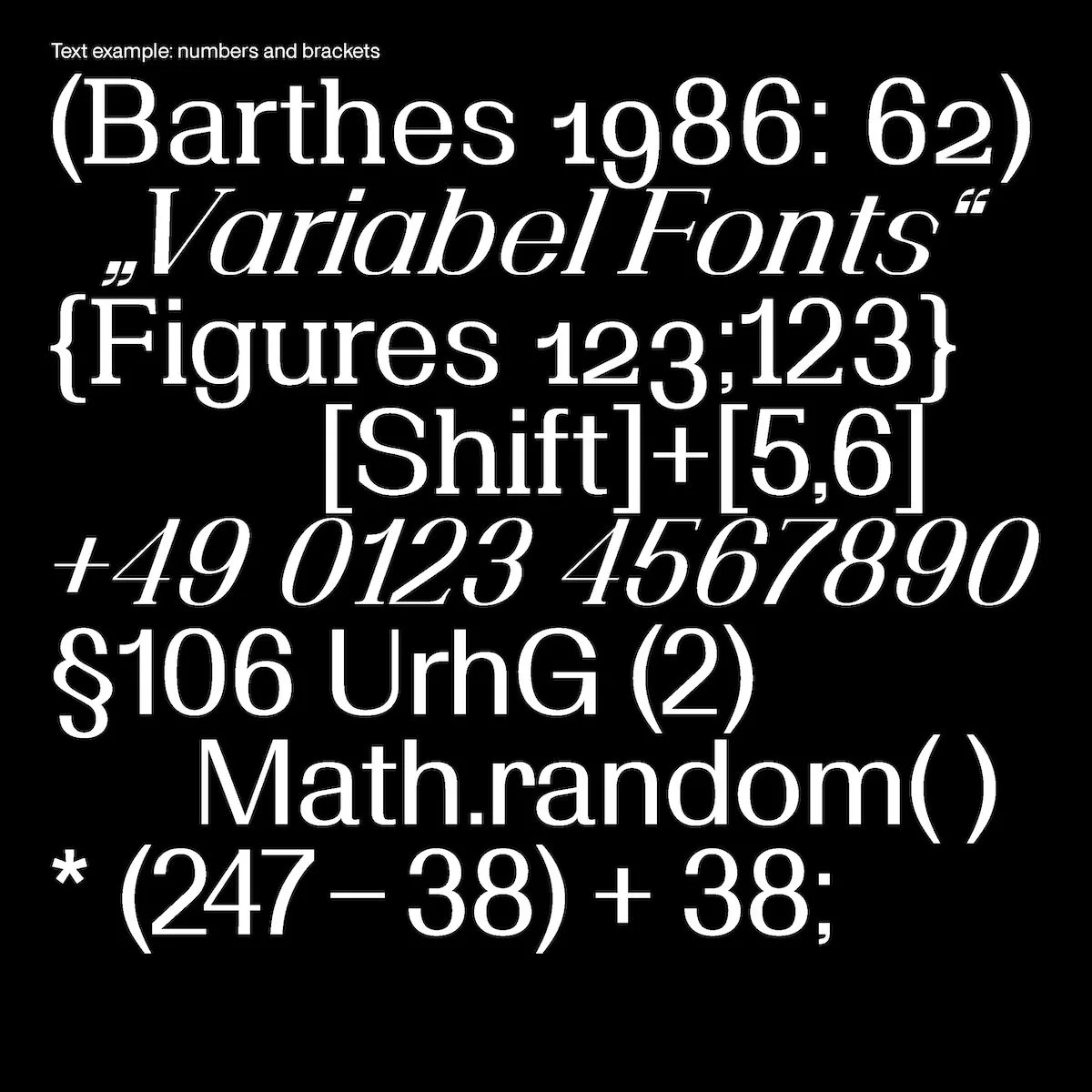
Combining theory and different design technologies – not only those present but those that could emerge – Daniel tells us his speculations ranged ‘from a total shift in activity to a more concentrated design effort’. Building on this gathered knowledge, an algorithm and associated web application were developed as a way of expanding some of his speculations into a practical space.
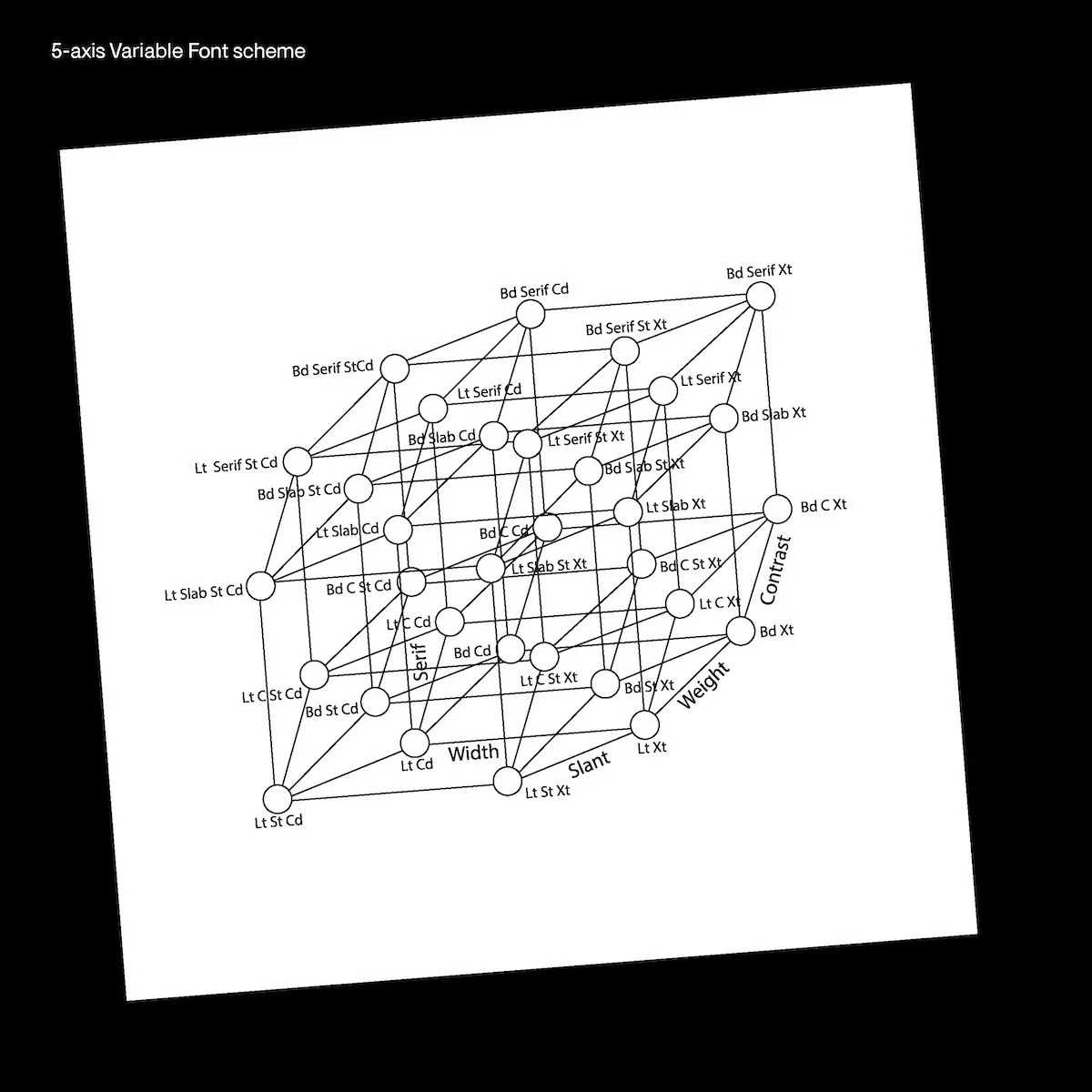
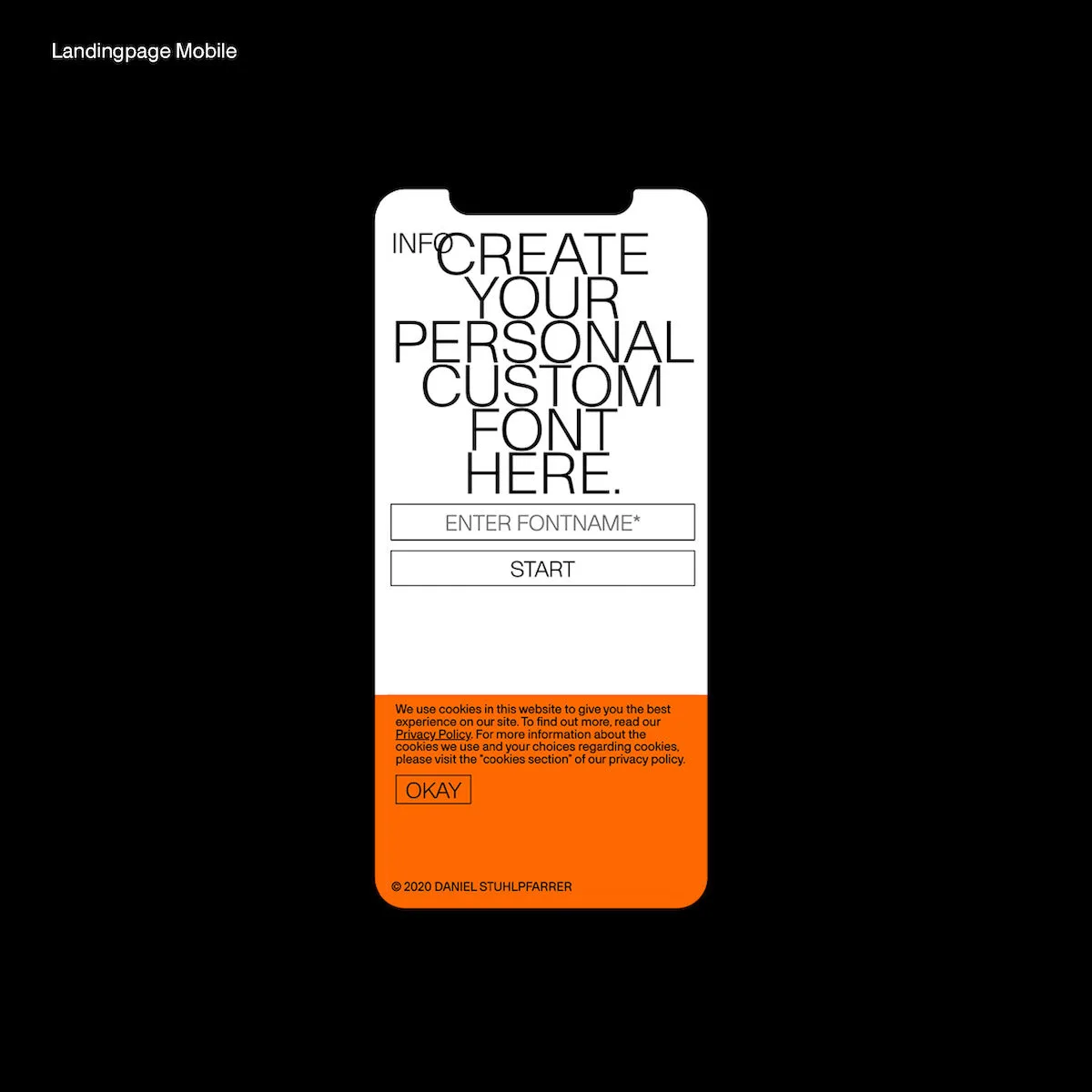
‘This web application generates a custom font based on the personality of the human being’, Daniel explains. ‘In order to put this project into practice, a “metafont” was designed, which combines the most diverse font classifications in one font. And so the variable font “Bagage” was developed, which interpolates on 5 axes. For this purpose, 32 masters – 32 extreme points of a font family – were drawn, resulting in a large number of different possible combinations.’
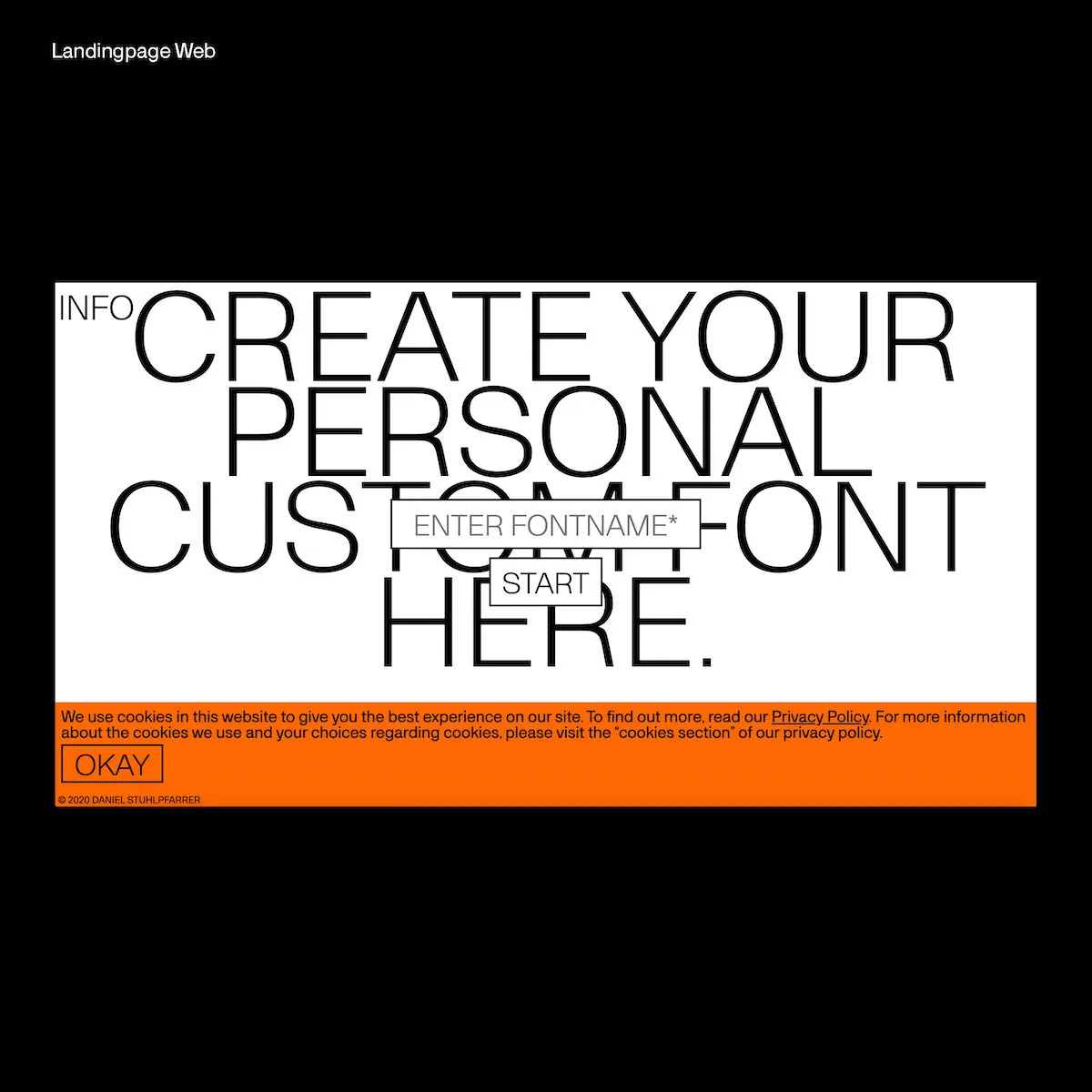
Merging a blueprint of a human personality as the host for an extensive variable font, Bagage forms the basis of Daniel’s Custom Font Generator – which, fascinatingly, works on a specially developed algorithm to determine the personality of the user and transfers its findings into the axes; therefore transferring it into the font classification. Daniel explains the algorithm uses the Big Five Inventory 10 test (aka The Big Five Personality test) as a foundation for its function. And given that the Big Five test is widely renowned as highly credible, it’s so interesting to think how Daniel’s been translating it into design… ‘With this Custom Font Generator “Bagage”, you can now generate your own personal custom font’ , he adds.
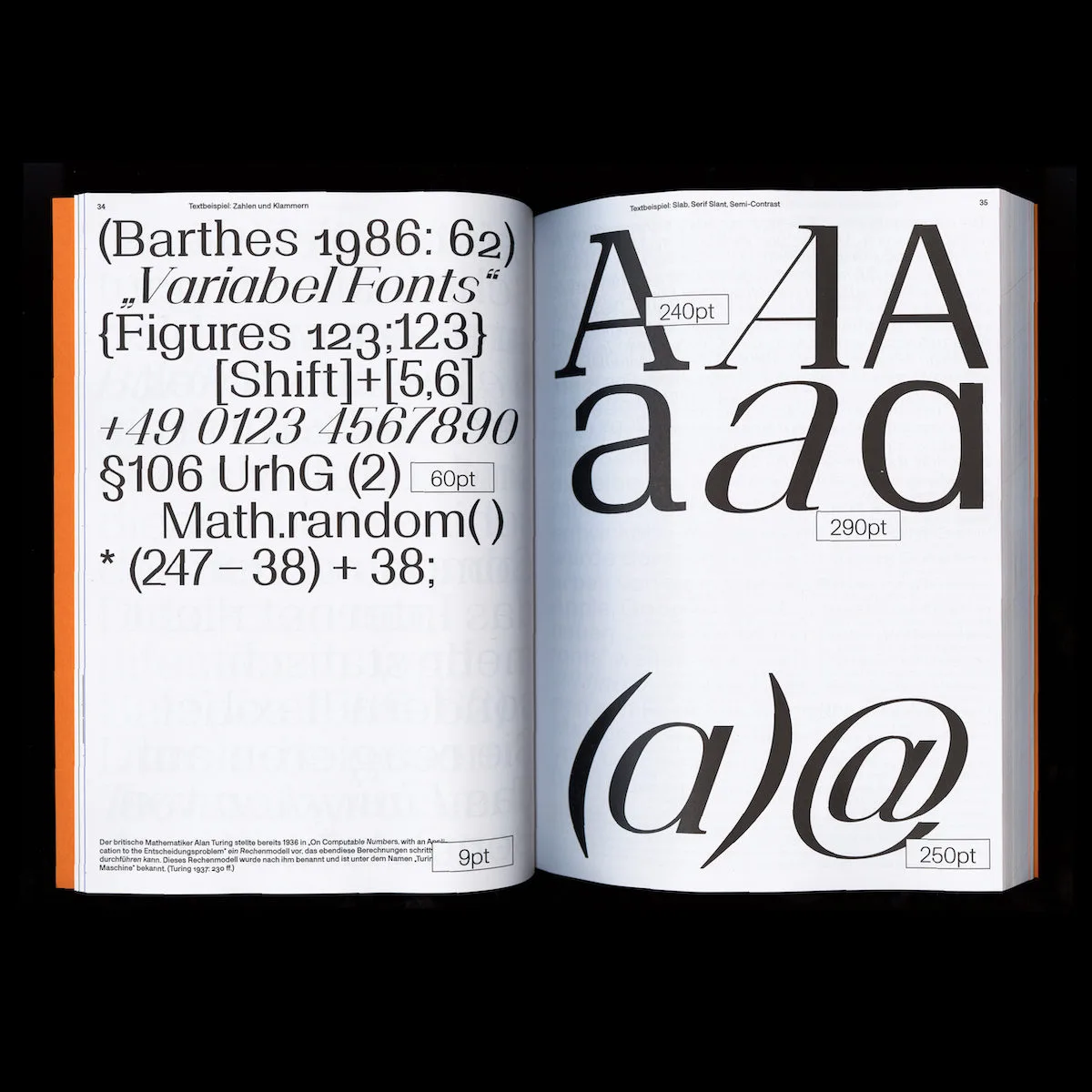
Alongside the Custom Font Generator, Daniel also developed the Speculative Type Design book, printed by AusDruck Berlin. ‘The book “Speculative Type Design” is the theoretical examination of the topic’, he tells us. ‘It contains the various theories on the topic of parametric type design, but also contrary theories on type itself. This knowledge forms the basis for speculation about the future of type design. Furthermore, the book is a comprehensive type specimen for the typeface “Bagage” and a user manual for the “Custom Font Generator” in 312 pages.’
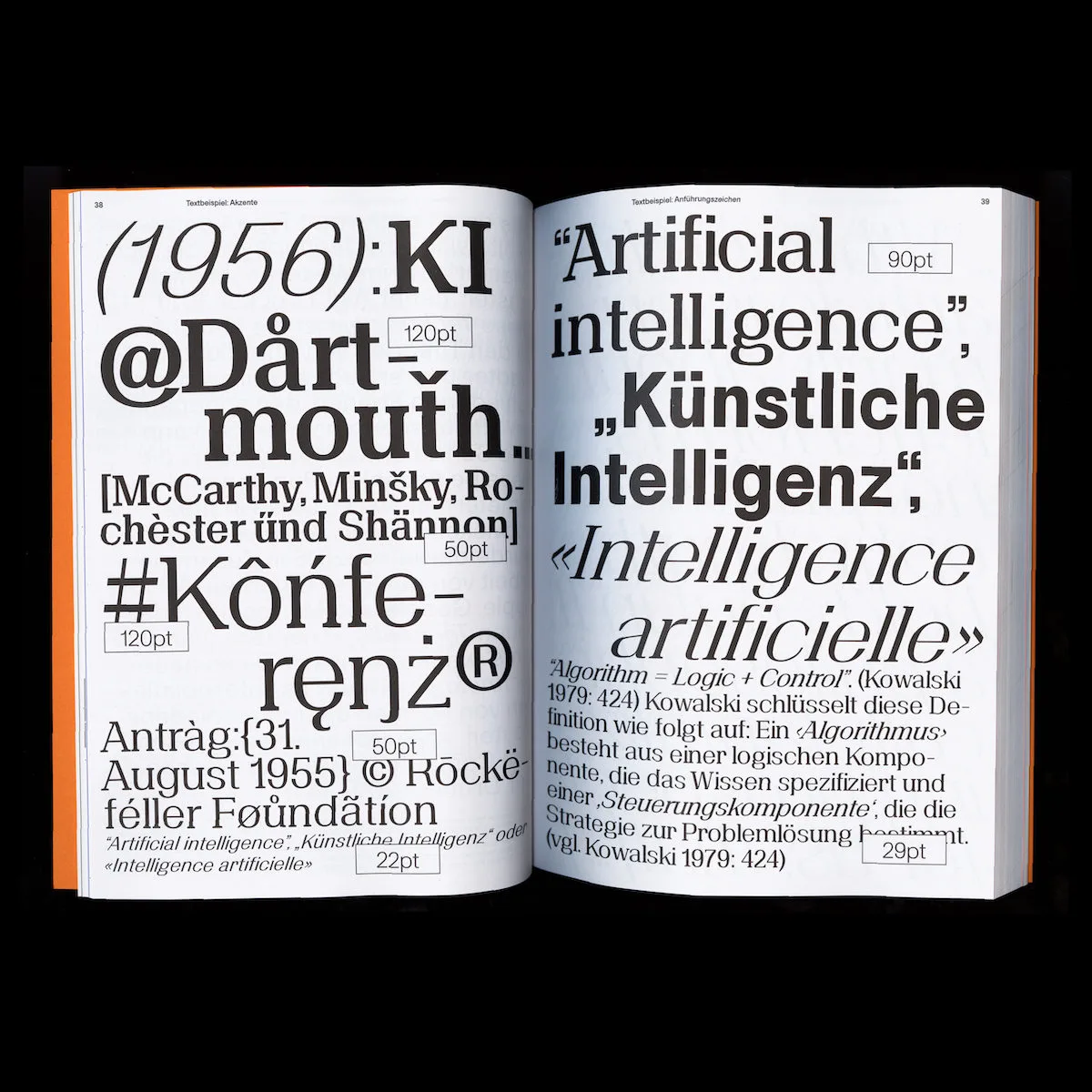
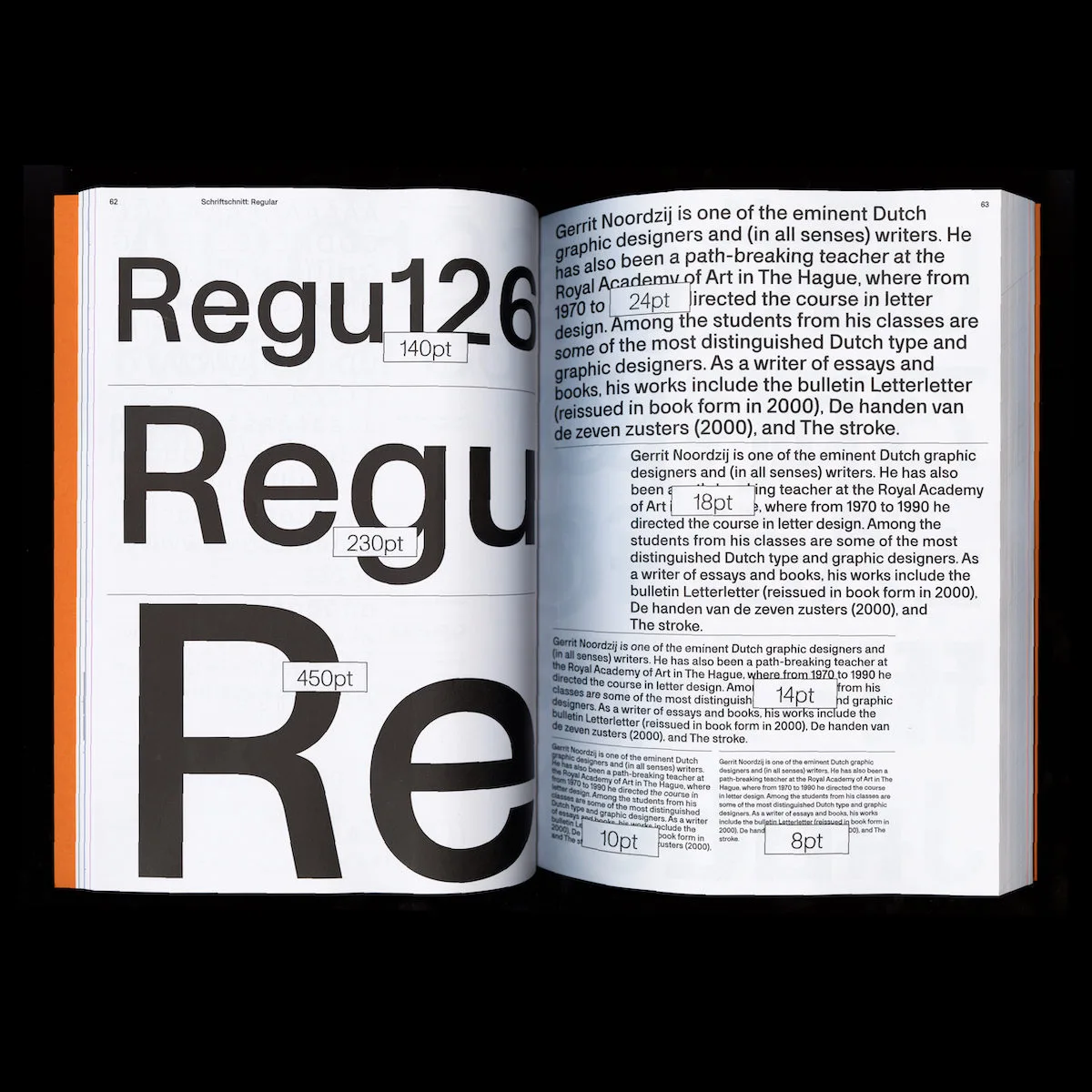
With so much theoretical exploration about the passages between tech, type and the possibilities of the future, it’s amazing to see such a practical approach being taken and a focus on a generative cooperation between man and machine; rather than a battle between the two. If you’re interested in seeing what a custom font generated by your personality might look like – now you can. Thanks, Daniel!